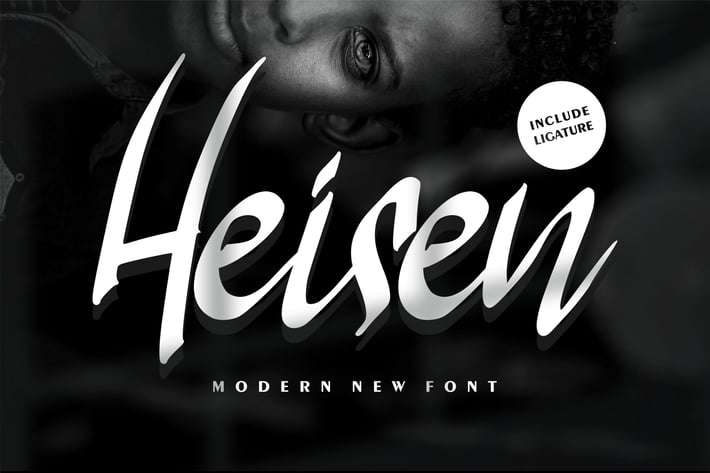
Heisen | Modern New Font
Heisen | Modern New Font with a calligraphy style, So beautiful on invitation like greeting cards, branding materials, business cards, quotes, posters, and more!